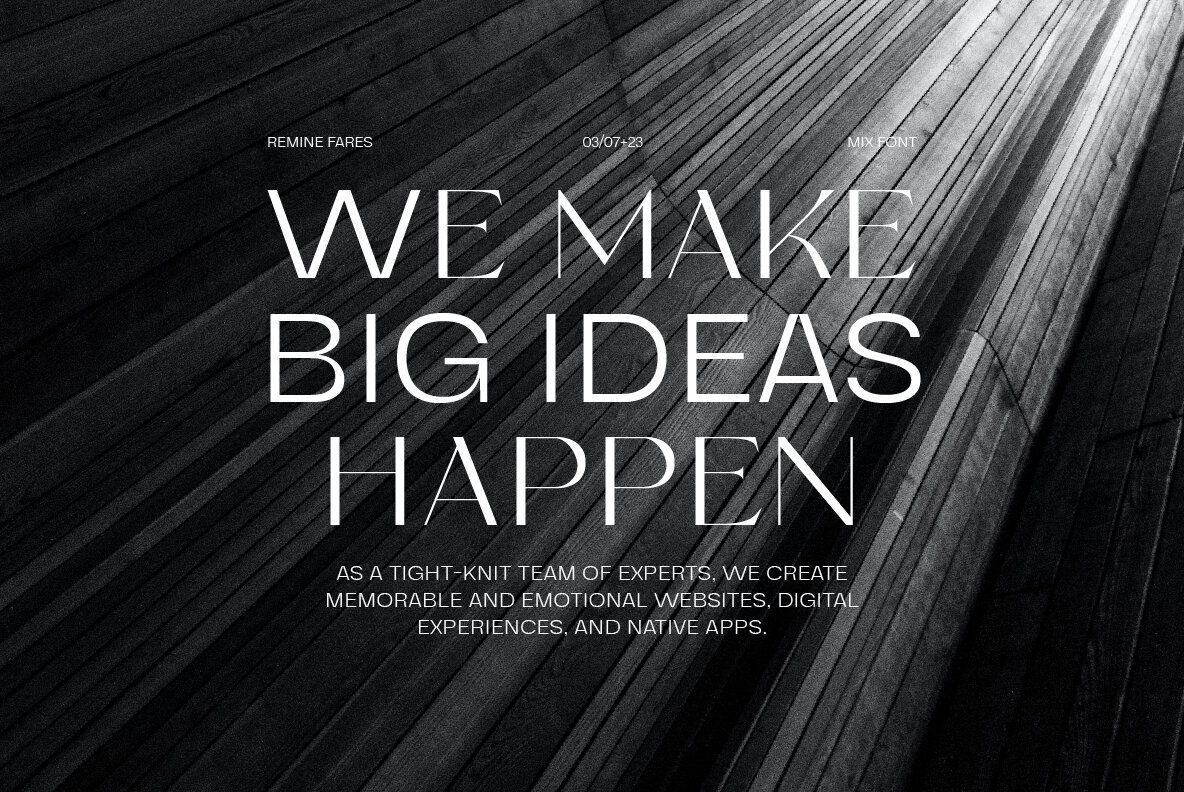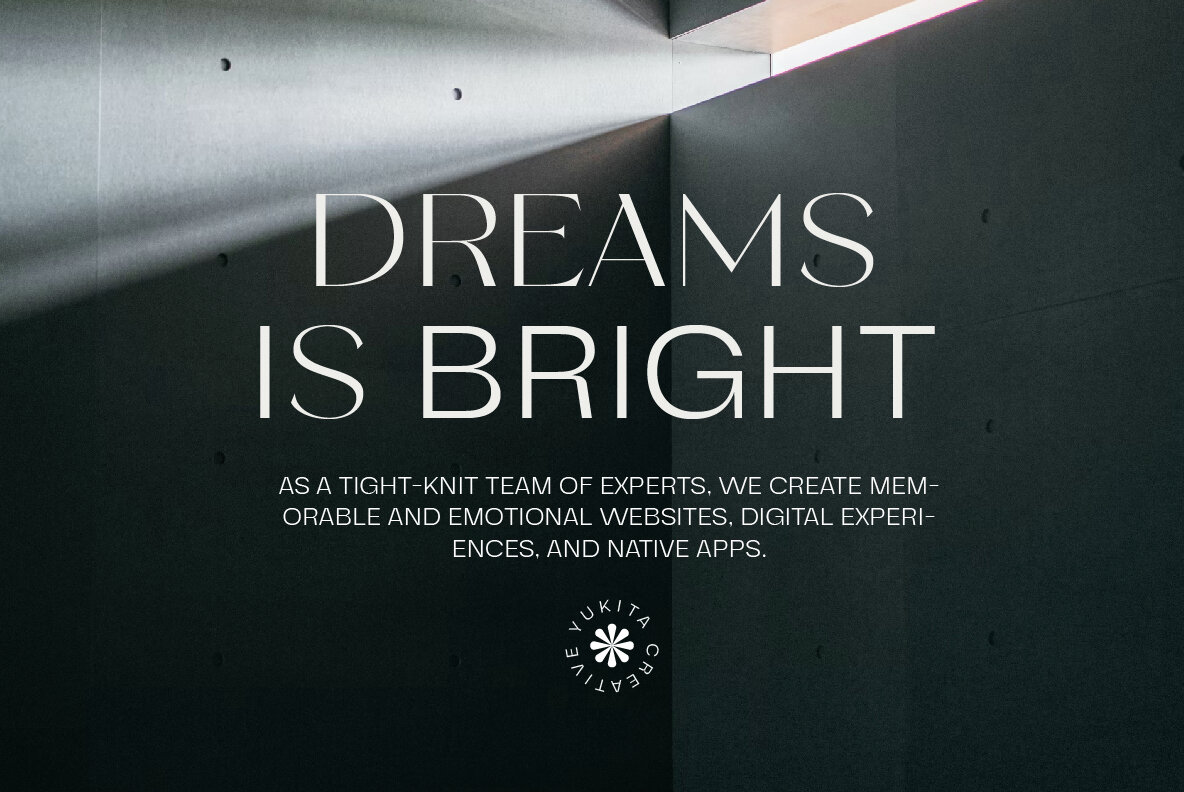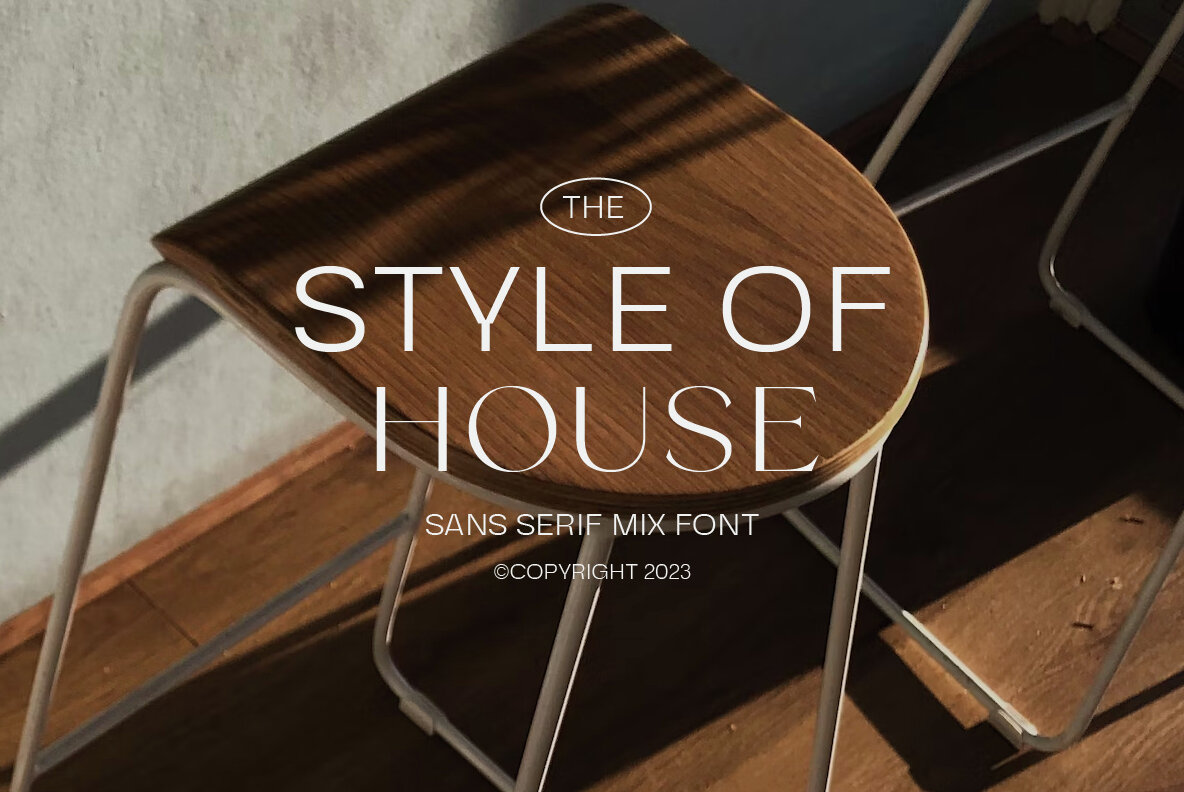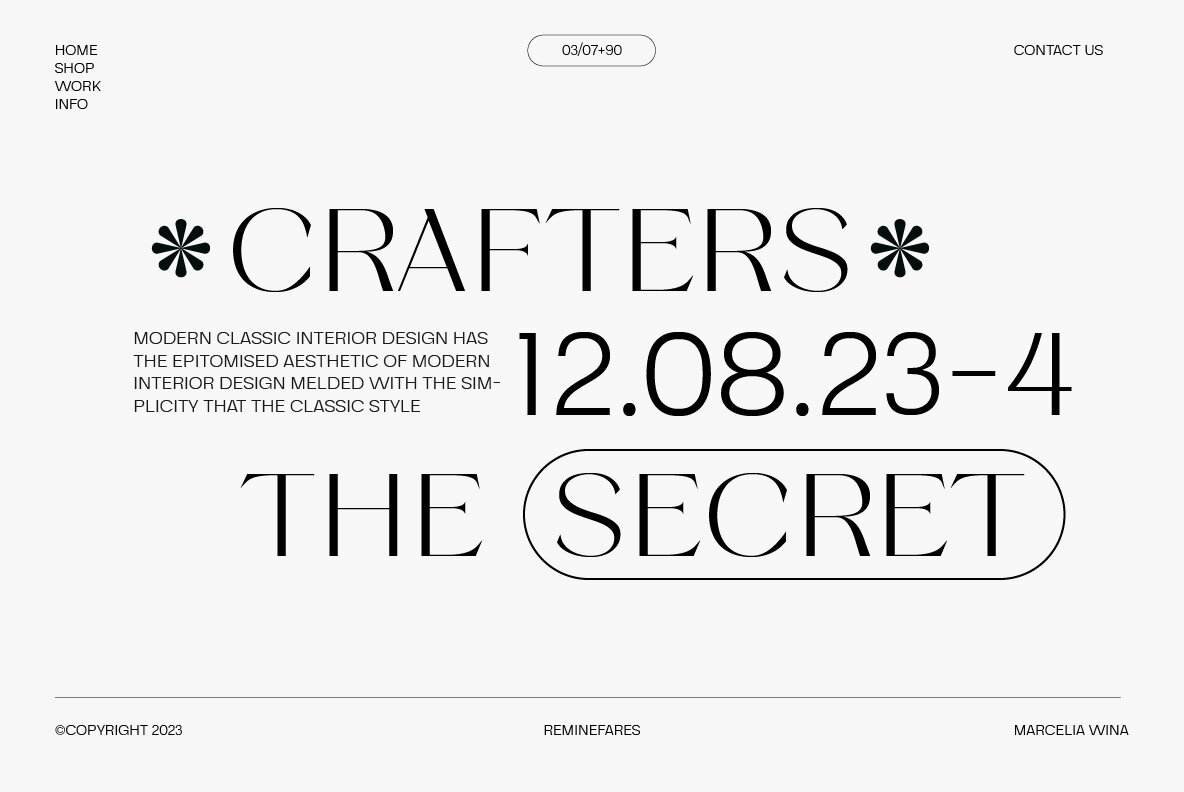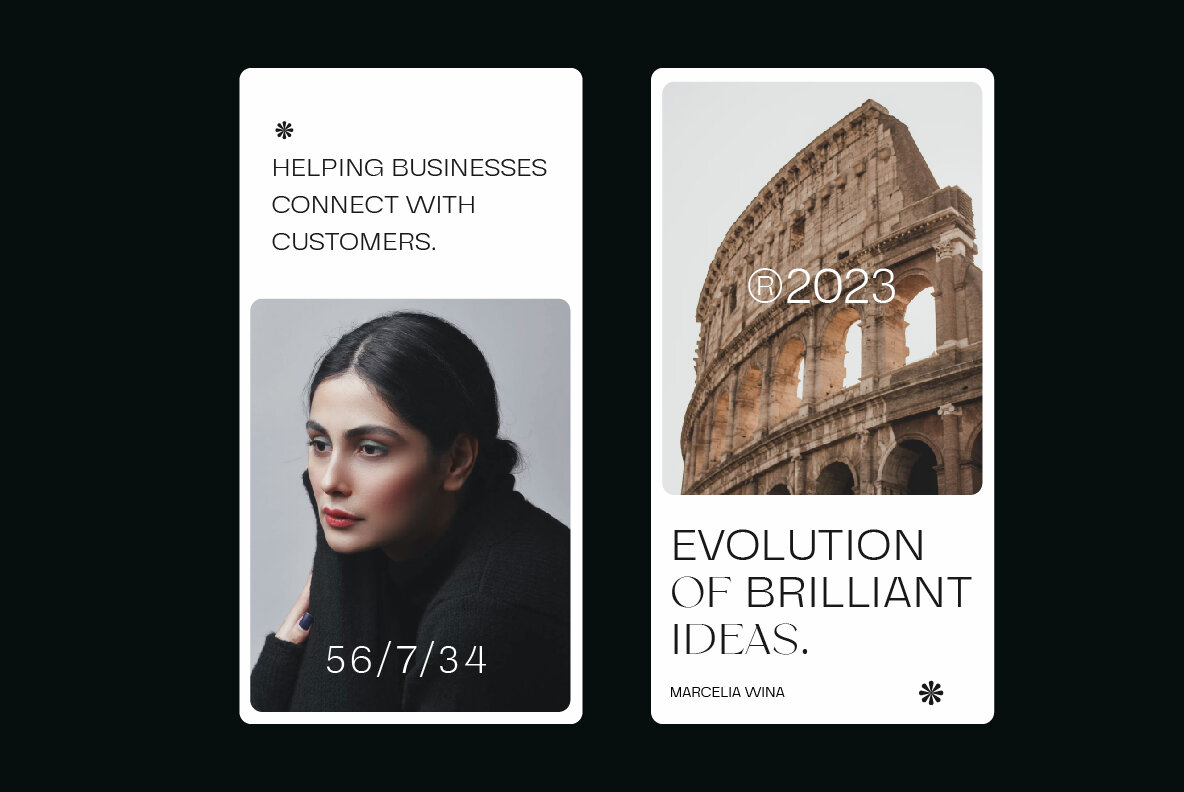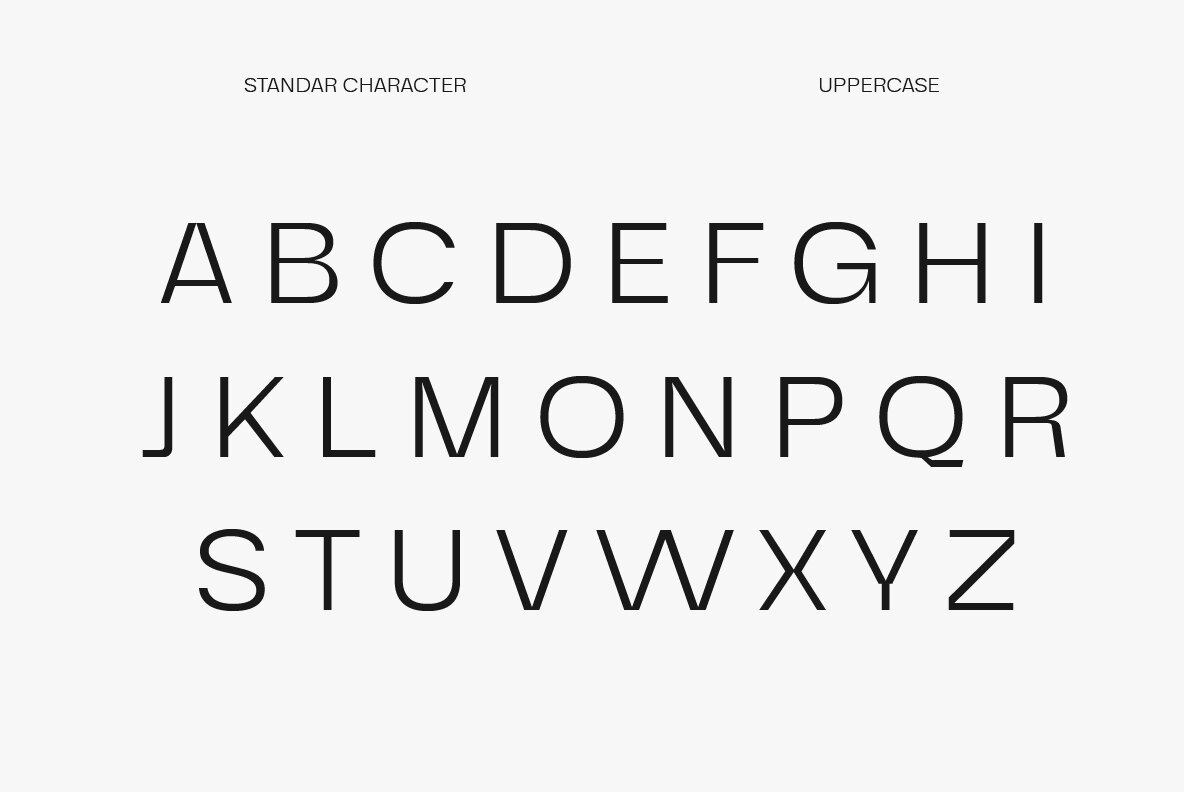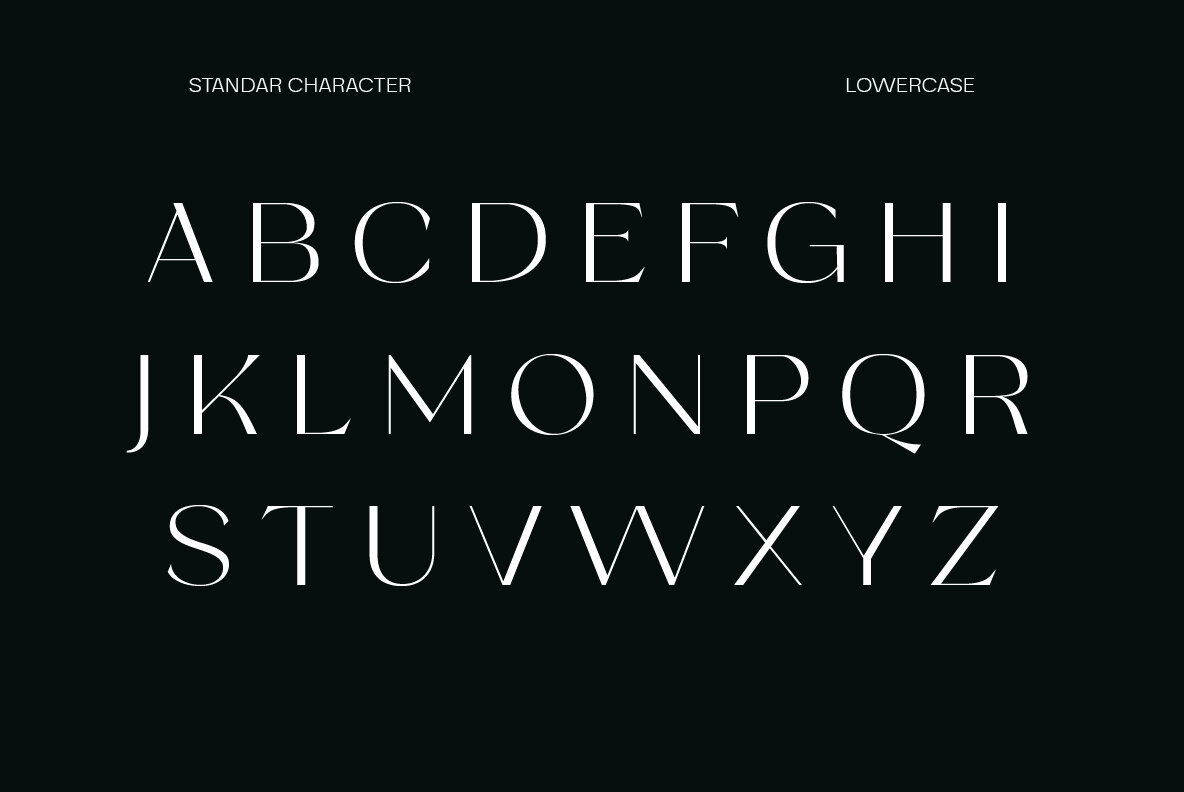
Remine Fares Font
Remine Fares Medium
Remine Fares Mix Font is a font that combines the uniqueness and beauty of two different font styles, namely sans serif and serif, in one harmonious font. With this combination, this font provides flexibility and unlimited possibilities in expressing creativity and creating attractive design looks.